Why are business card fonts important?
A well-designed business card can speak volumes about your brand and professionalism, even in an increasingly digital world. It can make or break your first impression at in-person networking events and in-person meetings. While various elements contribute to an effective business card design, one crucial aspect that often gets overlooked is the choice of fonts.
Fonts play a significant role in shaping the visual identity of your brand. They evoke emotions, convey messages, and create a cohesive and memorable design. Choosing the right fonts for your business cards can enhance your brand's identity, making it stand out from the competition.
In this comprehensive guide, we'll delve into the art of selecting the perfect fonts for your business cards and provide you with a curated list of the top cards to consider. The best business card fonts hide right in plain site in everyday life, and we're going to help you find them.
Understanding Your Brand
Before diving into the world of fonts, it's essential to understand your brand and its unique personality. Your business card font should reflect the core values, mission, and target audience of your brand. By aligning your font choices with your brand identity, you can create a cohesive and consistent visual language that resonates with your audience.
Different industries and businesses have distinct brand personalities. For instance, a law firm might aim for a professional and authoritative image, while a creative agency may seek a more modern and innovative vibe. Take the time to evaluate your brand's values, positioning, and target audience. Consider the emotions you want to evoke and the message you want to convey through your business cards.
Let's take a closer look at a few examples to illustrate how font choices can vary based on different brand personalities:
Professional and Authoritative
For businesses in industries such as law, finance, or consulting, fonts with a clean, bold, and traditional aesthetic work well. A serif typeface like Baskerville or Times New Roman convey a sense of professionalism and reliability. These fonts are ideal for business cards that need to exude trustworthiness and credibility.
Modern and Innovative
If your brand operates in the creative or tech industry, you may want to opt for contemporary and sleek fonts. Sans-serif fonts like Gotham or Montserrat offer a clean and minimalistic look, reflecting a sense of modernity and cutting-edge design. These fonts work best when you want to convey a sense of innovation, creativity, and forward-thinking.
Sophisticated and Luxurious
Brands in the luxury, fashion, or high-end hospitality sectors often have classic fonts that aim to project an image of elegance and refinement. Serif fonts like Playfair Display or Didot can evoke a sense of sophistication and exclusivity. These fonts lend themselves well to business cards that require a touch of opulence and timeless beauty.
Understanding your brand's personality is key to selecting fonts that align with your values and resonate with your target audience.
Consider conducting thorough research into your industry's trends and competitors' visual identities to identify the fonts that best capture the essence of your brand.
Legibility and Readability
When it comes to choosing the best fonts for your business cards, it's crucial to prioritize legibility and readability. No matter how visually appealing a font may be, if it's difficult to read, it can undermine the effectiveness of your business card and hinder communication with your audience.
To ensure optimal legibility, consider the following factors:
- Font Size: Select a font size that allows your text to be easily readable without straining the eyes. Too small, and your message may go unnoticed; too large, and it can make your business card look cluttered. Strike a balance that offers a clear and comfortable reading experience.
- Spacing: Pay attention to the spacing between letters and lines of text. Sufficient spacing enhances readability and prevents the text from appearing cramped or jumbled. Ample white space around the text can also create a sense of elegance and sophistication.
- Contrast: Ensure a noticeable contrast between your font color and the background of your business card. Opt for light-colored text on a dark background or vice versa to improve readability. Avoid low-contrast combinations that may strain the eyes or make the text blend into the background.
By prioritizing legibility and readability, you guarantee that your business card effectively delivers its message and facilitates seamless communication with your audience.
Reflecting Brand Personality
Your business card is an extension of your brand's identity.
The fonts you choose should reflect the personality and values of your brand, establishing a visual connection with your target audience. Let's explore some font styles and the emotions they evoke:
Serif Font & Serif Fonts
Serif fonts feature small lines or strokes (serifs) at the ends of characters.
They are often associated with tradition, elegance, and authority. Serif fonts like Baskerville, Garamond, or Times New Roman can lend a sense of sophistication and reliability to your business card, making them suitable for businesses in professional industries.
Sans-Serif Font & Sans Serif Fonts
Sans-serif fonts, as the name suggests, lack the decorative serifs.
They are known for their clean and modern appearance, often associated with simplicity, clarity, and innovation. Popular sans-serif fonts like Helvetica, Gotham, or Montserrat offer versatility and legibility, making them suitable for businesses aiming for a contemporary and approachable image.
Script Fonts
A script font mimics cursive handwriting and evoke a sense of elegance, creativity, and personalization. They can add a touch of uniqueness and charm to your business card.
However, it's important to use a script font for business cards sparingly and ensure they remain legible at smaller sizes to maintain readability. A script font can often draw plenty of attention, so it should only be used in areas where it fits most. Script fonts can also be a great choice for logos.
Display Fonts
Display fonts are attention-grabbing, decorative fonts that are best used sparingly for headlines or specific design elements on your business card. They can add a unique and memorable touch to your brand's identity.
However, be cautious with their readability, as some display fonts may be challenging to read at smaller sizes.
The font choices you make should align with your brand's personality and resonate with your target audience. Experiment with different combinations, but ensure the overall design remains cohesive and readable.
Font Pairing
Choosing the right fonts for your business card goes beyond selecting a single typeface. Font pairing involves combining two or more fonts to create visual interest, establish a hierarchy, and enhance the overall aesthetics of your design. Here are some tips for effective font pairing:
- Contrast: Aim for contrast between your font choices to create a visually appealing composition. Pair a bold, attention-grabbing font with a more subdued and complementary one. The contrast can be achieved through variations in font styles, weights, or sizes.
- Complementing Styles: Consider combining fonts from different families or categories to add variety while maintaining harmony. For example, pair a clean and modern sans-serif font with a classic and elegant serif font. The combination can create a visually dynamic and balanced layout.
- Hierarchy: Establish a clear hierarchy by assigning different fonts for headlines, subheadings, and body text. Use a more prominent and attention-grabbing font for the headline to draw attention, while using a simpler font for the supporting text. This ensures readability and guides the reader's eye through the information on your business card.
- Consistency: While experimenting with font pairings, it's essential to maintain consistency throughout your branding materials. Select fonts that align with your brand's personality and ensure they are used consistently across various touchpoints, such as your website, social media, and marketing collateral.
By thoughtfully combining fonts, you can create a visually compelling and cohesive design that enhances your brand's identity and captures the attention of your audience.
Best Business Card Fonts
Now that we've explored the key considerations for selecting fonts and the best font for pairing, let's take a look at a curated list of top business card fonts. Each font listed below comes with its distinct characteristics and applications, enabling you to find the perfect fit for your brand:
1. Helvetica
A modern font versatile and widely recognized sans-serif font known for its clean and modern appearance. Suitable for various industries, particularly those with a contemporary and minimalist brand identity.
2. Playfair Display
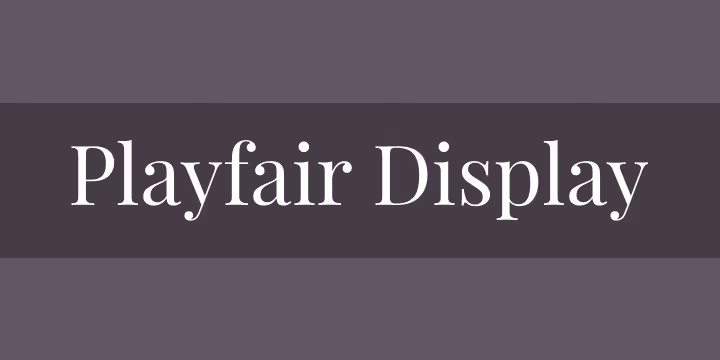
An elegant and full font style with sophisticated serif font that exudes a sense of timeless beauty. Ideal for businesses in the luxury, fashion, or creative industries.
3. Montserrat
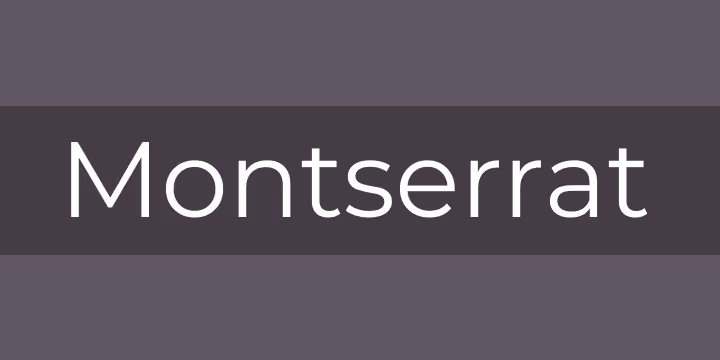
A geometric sans-serif font with a friendly and approachable vibe. Its versatility makes it an elegant font suitable for businesses looking to convey modernity and professionalism.
4. Lato
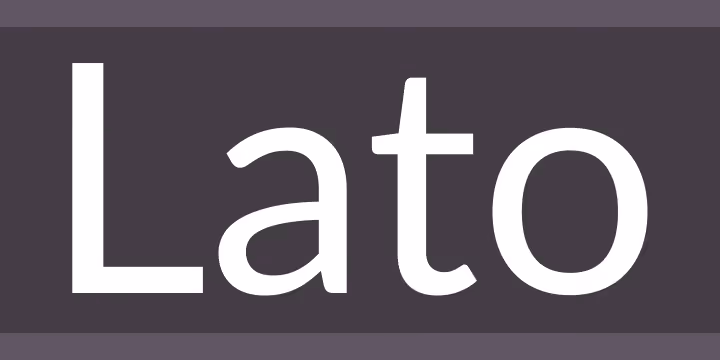
A humanist sans-serif font with excellent readability and versatility. It strikes a balance between friendly and professional, making it a classic font suitable for a wide range of businesses.
5. Gotham
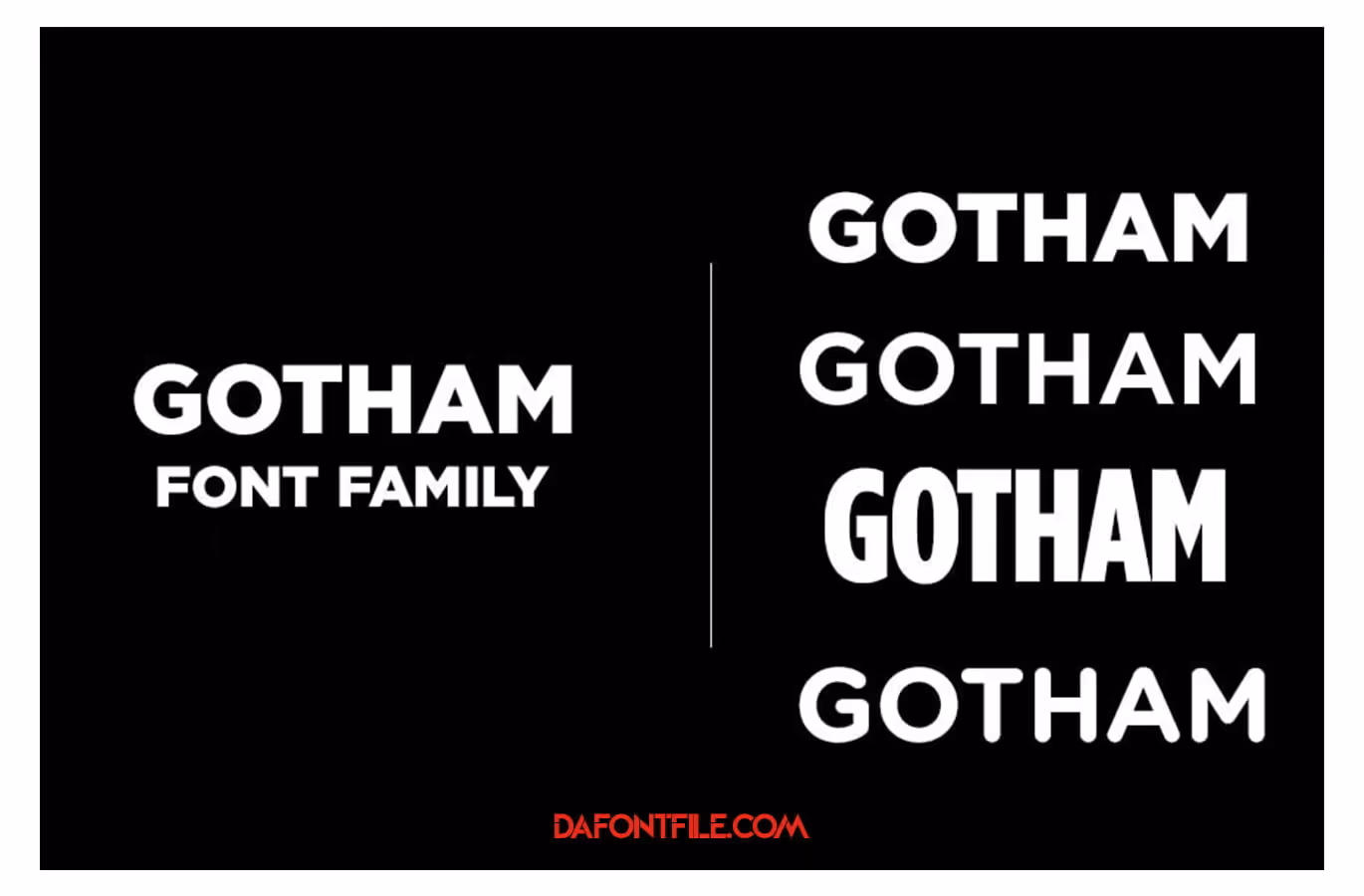
A contemporary and stylish sans-serif font known for its clean lines and geometric shapes. Popular among businesses in the creative and tech industries.
Keep in mind, the fonts listed above are just a starting point. Feel free to explore and experiment with other fonts to find the ones that best represent your brand's personality and resonate with your target audience.
Implementation Tips
Now that you have a better understanding of how to choose the right fonts for your business cards, here are some implementation tips to ensure a successful design:
Test Print
Before finalizing your business card design, it's crucial to test print a sample. This allows you to evaluate the legibility and readability of your chosen fonts in a physical format. Make any necessary adjustments to font sizes, spacing, or contrast to optimize the visual impact of your design.
Consider Print Restrictions
Keep in mind that certain fonts may not translate well when printed in small sizes or on specific materials. Some intricate or thin fonts may lose their detail or become illegible. Ensure your selected fonts maintain their quality and readability in the actual printing process.
Limited Font Usage
While it's tempting to use a variety of fonts to add visual interest, it's generally best to stick to a maximum of two or three fonts for your business card design.
Using too many fonts can create visual clutter and dilute the impact of your message. Remember, simplicity and consistency are key.
Balance with Other Design Elements
Fonts should complement and harmonize with other design elements on your business card, such as your logo, colors, and overall layout. Ensure a cohesive visual language by considering the relationship between fonts and these elements. Strive for a design that feels balanced and visually appealing.
Seek Professional Assistance
If you're uncertain about design principles or lack the necessary design skills, don't hesitate to seek professional assistance. Graphic designers can provide expert advice on font selection, pairings, and overall design aesthetics. They can help you create a business card that effectively represents your brand and leaves a lasting impression. Graphic Design as a Service companies are the perfect (and easiest) solution to instantly produce amazing business cards and more.
Conclusion
Choosing the right fonts for your business cards is a crucial step in enhancing your brand's identity and creating memorable connections. By understanding your brand, prioritizing legibility, reflecting brand personality, and employing effective font pairings, you can choose cards that leave a lasting impression on your audience.
Embrace the art of font selection, and let your business cards speak volumes about your brand's professionalism, creativity, and uniqueness. Harness the power of fonts to leave a lasting impression and forge meaningful connections in the business world.